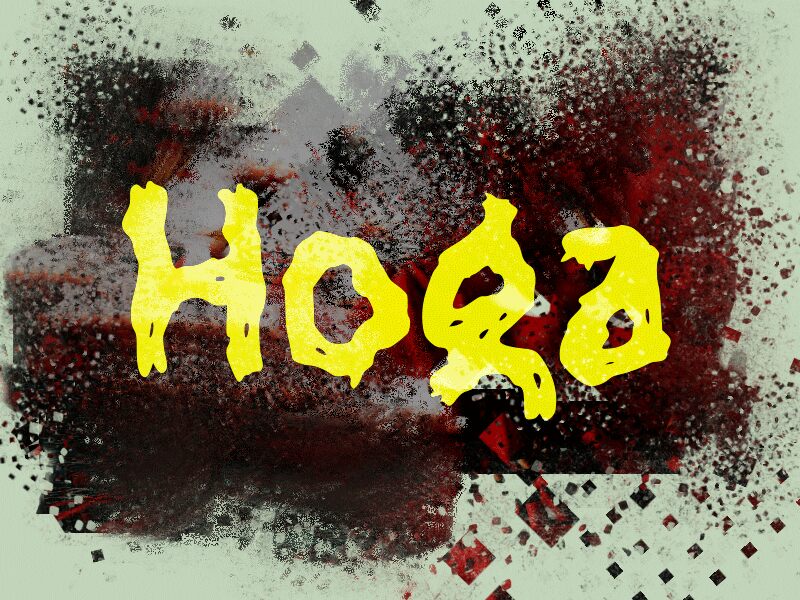
Hoga
Hoga, a bold and scary display font designed by wep, is perfect for adding an eerie touch to your haunted house advertisements. Its intimidating letterforms and strong lines will send shivers down your readers' spines, making it ideal for horror movie posters that demand attention. With Hoga, you can create chilling Halloween party invitations that set the mood for a night of frightful festivities.
This bone-chilling typeface will also give your website or blog a spine-tingling makeover, captivating readers with its macabre charm.
Unleash the dark side of design with Hoga!